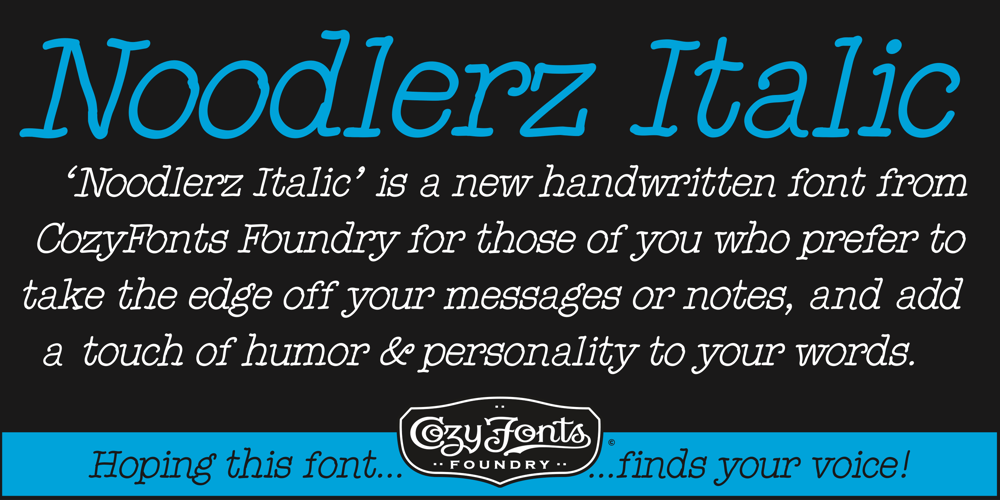
Noodlerz Font Family was designed by Tom Nikosey and published by CozyFonts. Noodlerz contains 2 styles and family package options. Noodlerz is the 3rd font designed for Cozy Fonts Foundry. It is the second ‘handwriting style’ type fonts designed to have a very casual but organized voice in it’s coloring when set in text. You might say Noodlerz is a cross between a sharpie & a vintage typewriter alphabet font. Noodlerz, and it’s partner Noodlerz Italic, give off a humorous personality with a flair of sarcasm and cartoon flavor. Great for captions, grocery lists, Dear John letters, recipes, and of course greeting cards. Advertising headlines and supportive body-copy text marry well in various point sizes. ‘Hoping this font finds your voice!’ Noodlerz from CozyFonts Foundry.